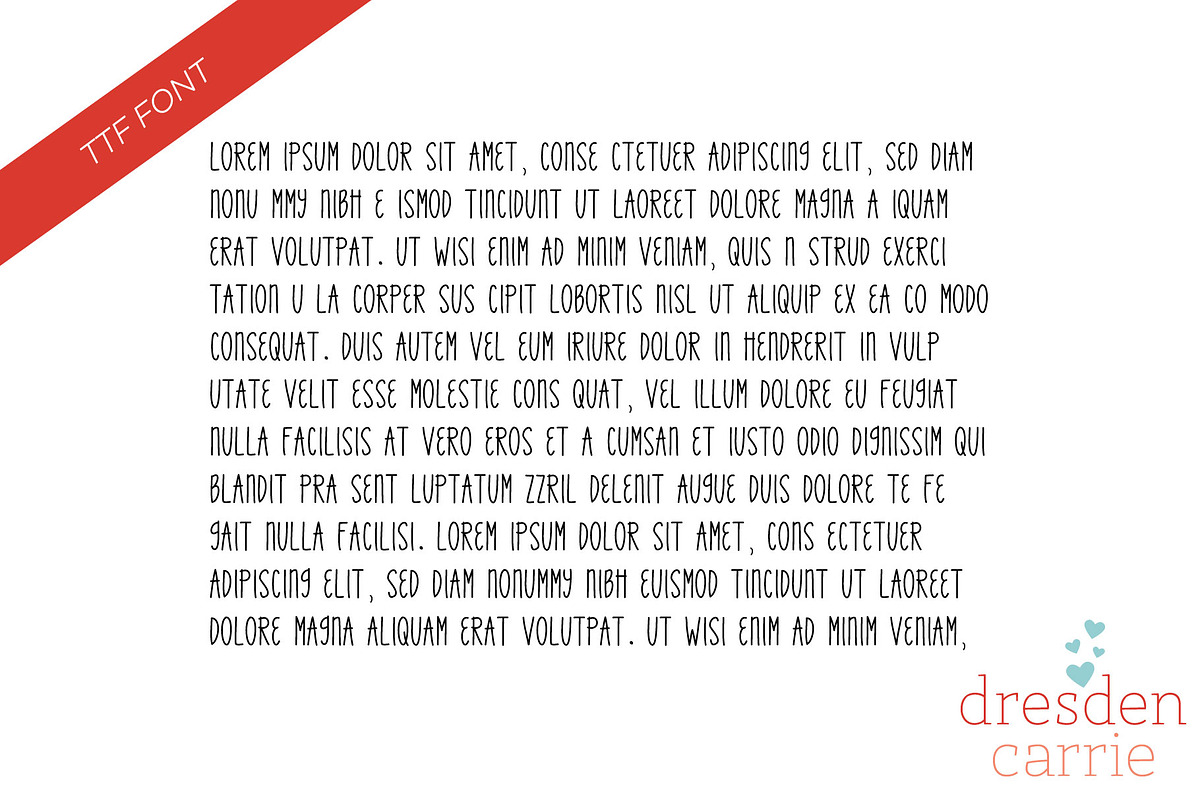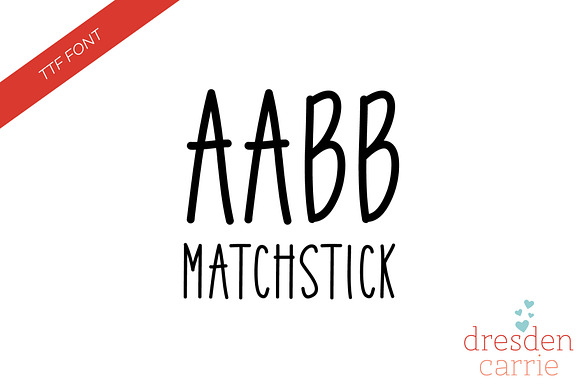
Matchstick Hand-Drawn Font
Why Matchstick Hand-Drawn Font is worth a look
Matchstick Hand-Drawn Font by dresdencarrie designs fits naturally into Branding, posters, packaging, typography.